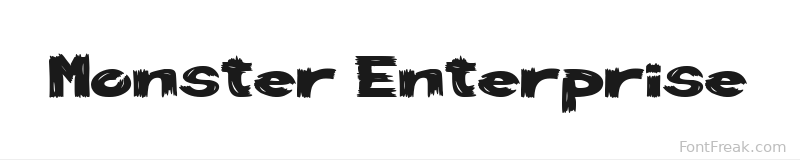
Monster Enterprise
Monster Enterprise, designed by the talented woodcutter Manero, is a striking display font that exudes a bold and adventurous spirit. Characterized by its uneven, jagged edges and a playful yet rugged appearance, this font captures attention and delivers a unique visual impact. The strokes vary in weight, creating a dynamic contrast that enhances its artistic flair. The spacing is moderately tight, allowing the letters to feel cohesive while still retaining their individual character.
This font is particularly well-suited for a range of creative projects. It makes an excellent choice for movie posters that require a sense of excitement and energy, capturing the essence of action-packed films. Additionally, its distinctive style is perfect for branding materials for small businesses, especially those in the outdoor or adventure industries. Restaurant menus aiming for a rustic or thematic ambiance can also benefit from the bold aesthetic of Monster Enterprise, drawing diners in with its unique visual appeal. Furthermore, this font can add a playful touch to children's book covers or educational materials, engaging young readers with its fun and lively character.
Targeting graphic designers, small business owners, and content creators, Monster Enterprise offers a versatile option for anyone looking to make a memorable statement in their designs. Its freeware license makes it accessible for various projects, providing an opportunity for creativity without financial constraints.
What truly sets the Monster Enterprise font apart is its captivating blend of rugged charm and artistic expression. It not only stands out visually but also resonates with an adventurous spirit, making it a perfect choice for those who aim to leave a lasting impression. For anyone interested, the Monster Enterprise font free download is an opportunity to elevate their design work with this exceptional typeface.